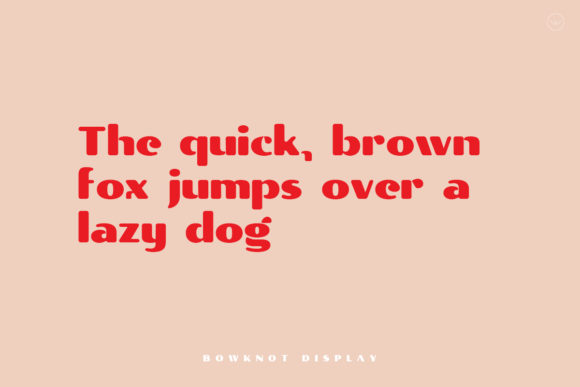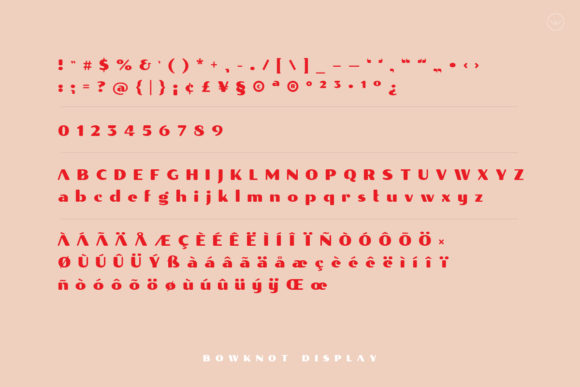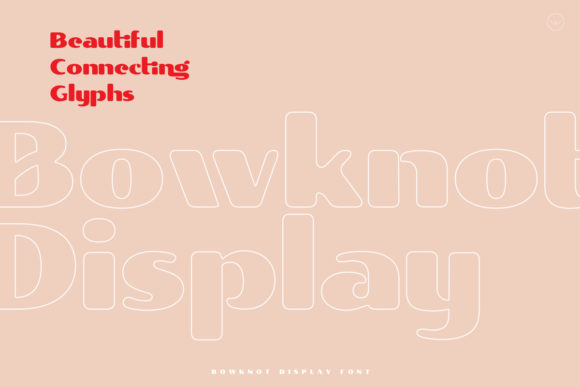
Introduction to Bowknot Font
Bowknot is a modern, clean and thick lettered display font.
Simple but with a strong visual effect, this font will instantly make your creation more appealing than any others .